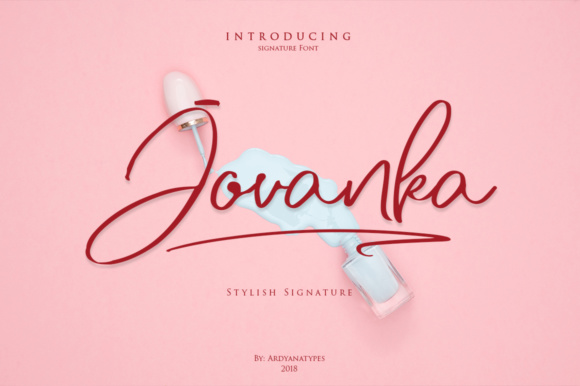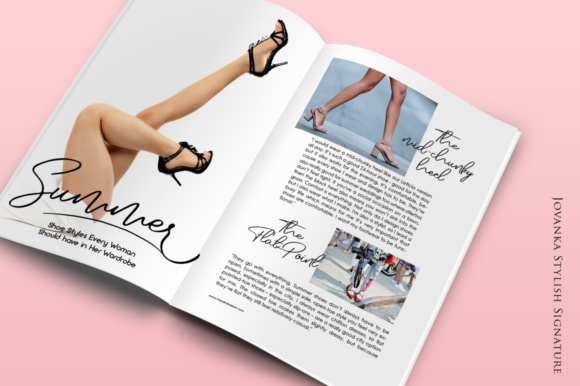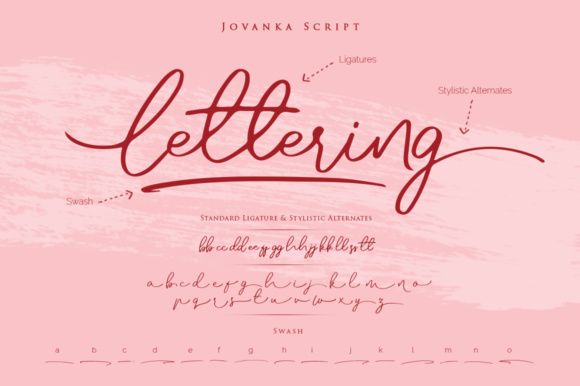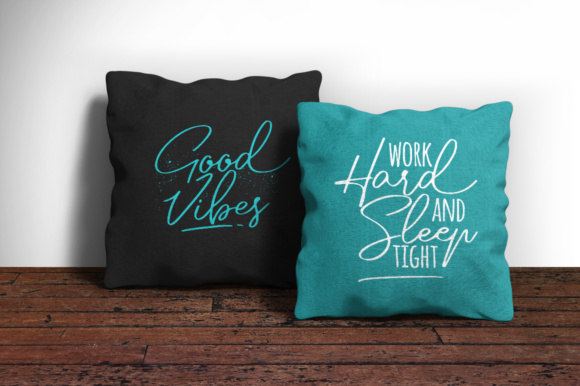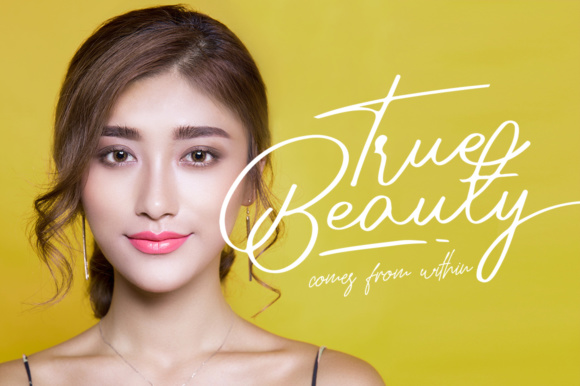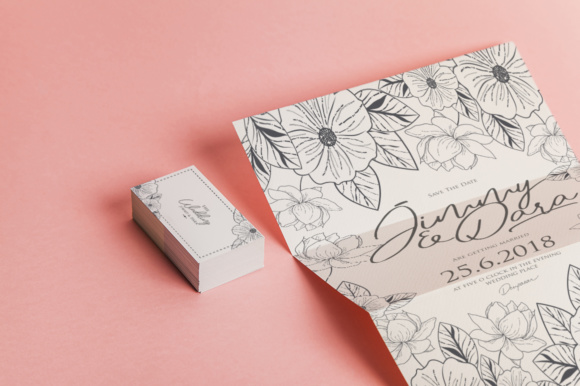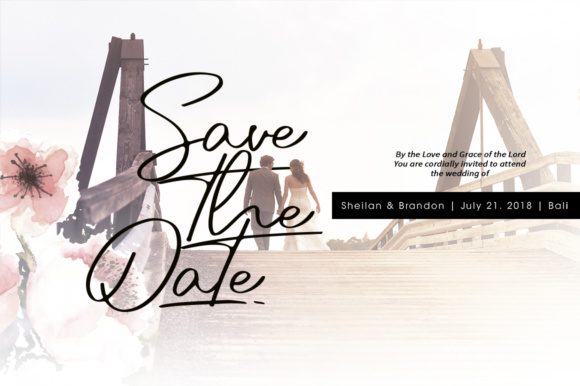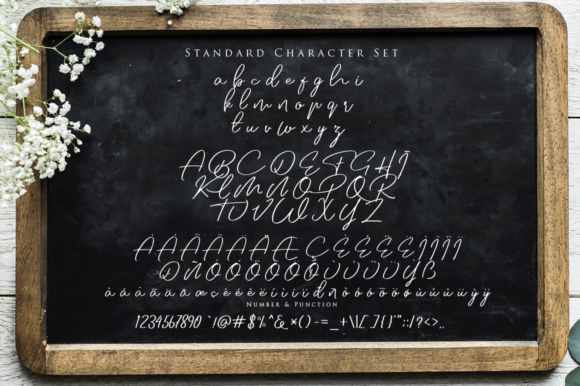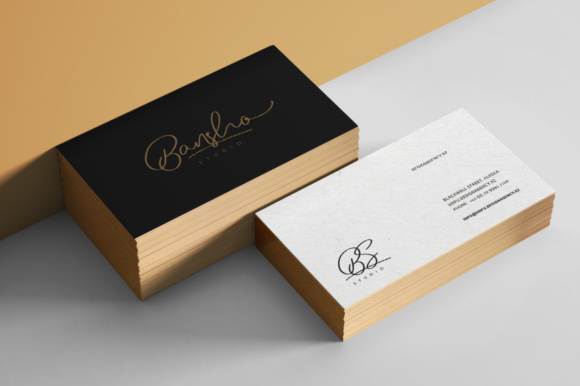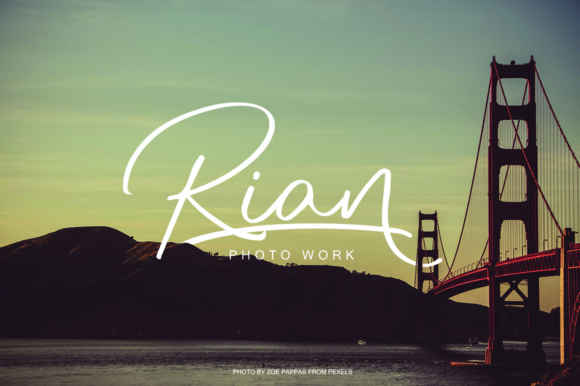
HomeScript FontsJovanka Script Font Script Fonts Jovanka Script Font FacebookXPinterestWhatsApp Jovanka Script Font Poster 2 Jovanka Script Font Poster 3 Jovanka Script Font Poster 4 Jovanka Script Font Poster 5 Jovanka Script Font Poster 6 Jovanka Script Font Poster 7 Jovanka Script Font Poster 8 Jovanka Script Font Poster 9 Jovanka Script Font Poster 10 About Jovanka Script Font Jovanka is a modern font created to suit all design needs. DOWNLOAD NOW People also explored Sevens Font Emely Bllosom Font Sparks Fly Font 10.12 Mister Quenos Font Rowena Premya Monday Font Broken Space Font Sweet Home Font 267 0 TagsJovanka Script Font Previous articleKingbirds Script FontNext articleBigstorm Script Font LEAVE A REPLY Cancel reply Comment: Please enter your comment! Name:* Please enter your name here Email:* You have entered an incorrect email address! Please enter your email address here Website: Save my name, email, and website in this browser for the next time I comment. Personal Use Free Angelitta Personal Use Free Read more about this font Evelyne Personal Use Free Read more about this font Fadhista Personal Use Free Read more about this font Hunters Personal Use Free Read more about this font BLOG Using Fonts in Digital Marketing: Tips to Strengthen Your Brand Identity In the realm of digital marketing, every visual element plays a crucial role in shaping a brand's identity, and fonts are no exception. The... Exploring Font Trends Best Fonts for YouTube Videos: Make Your Thumbnails Stand Out To increase your work productivity, choose the most readable fonts.